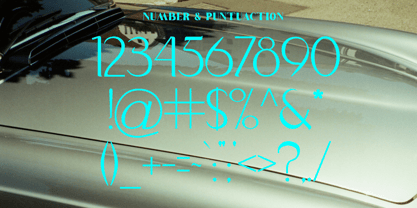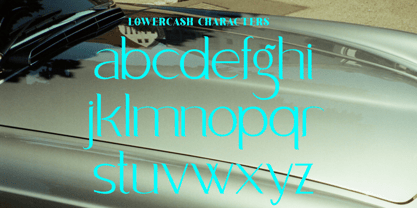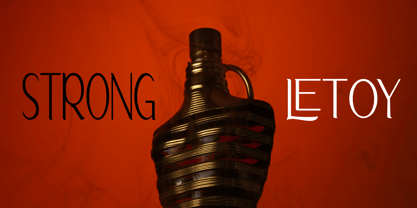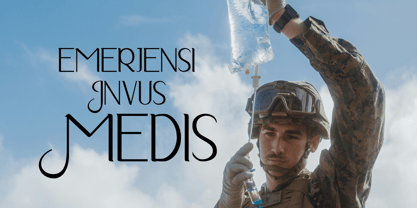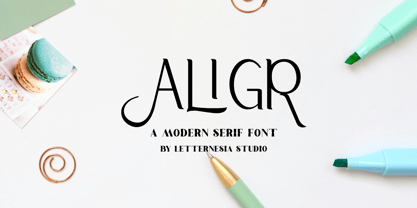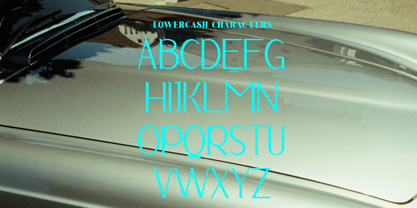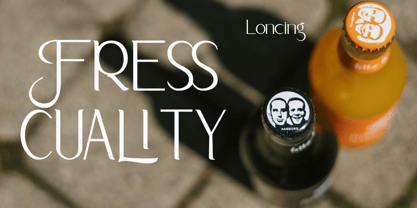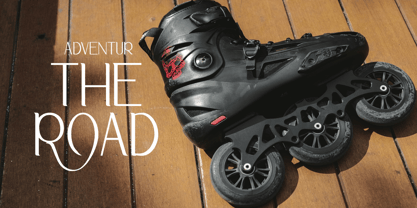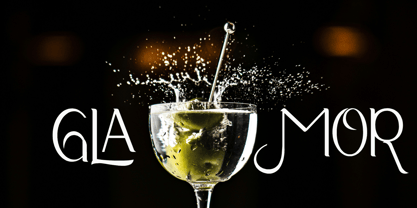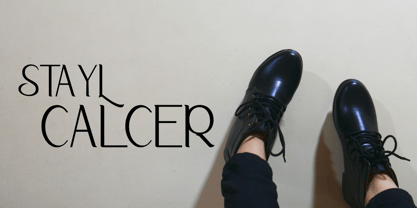
Aligr
La famille de polices Aligr a été conçue par Ta Siyo et publiée par Letternesia studio. Aligr contient 2 styles et options de package familial.
ALIGR is a bold and modern display font designed to make a strong visual statement. Featuring solid letterforms and confident proportions, ALIGR delivers a powerful, clean, and expressive character that stands out instantly. Its distinctive style blends strength and clarity, making it highly impactful for headline-focused designs. Perfect for logos, branding, posters, packaging, apparel, and editorial titles, ALIGR is built to capture attention and create a memorable identity. Whether used in contemporary, urban, or experimental projects, this font adds a confident and professional touch to any design. ALIGR is not just a font—it’s a bold visual identity.